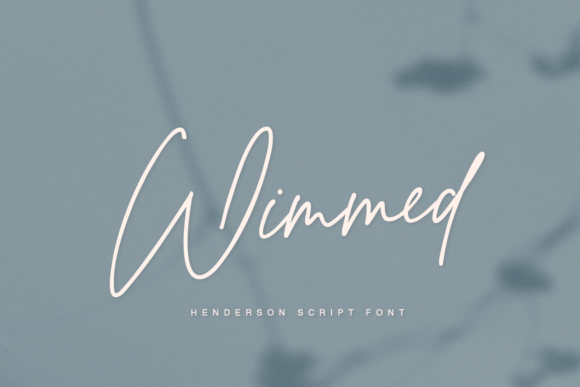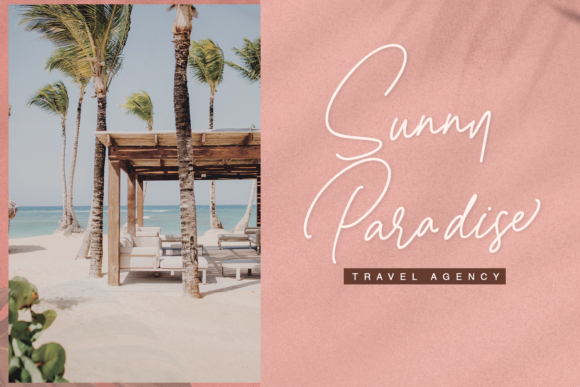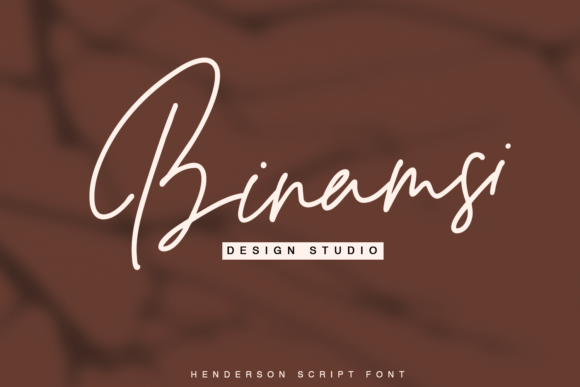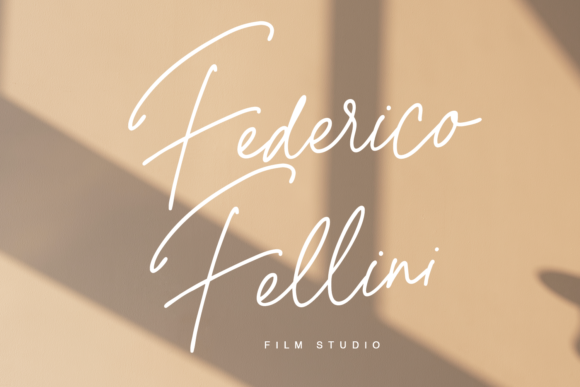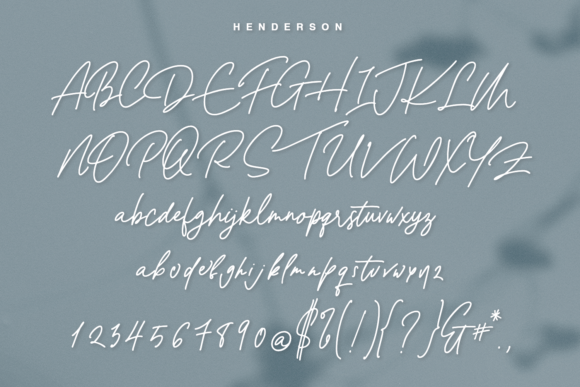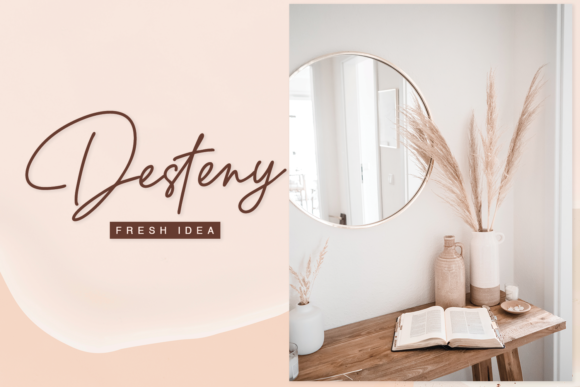
Introduction to Henderson Script Font
Henderson Script is a stylish and thin lettered script font.
It is perfect for any branding project such as logos, t-shirt printing, creative products, and more .
Key Features of Henderson Script Font
Why Choose Henderson Script Font?
Henderson Script Font offers exceptional quality and versatility, making it a valuable addition to your design toolkit. Whether you’re creating for personal projects or commercial use, Henderson Script Font delivers professional results.